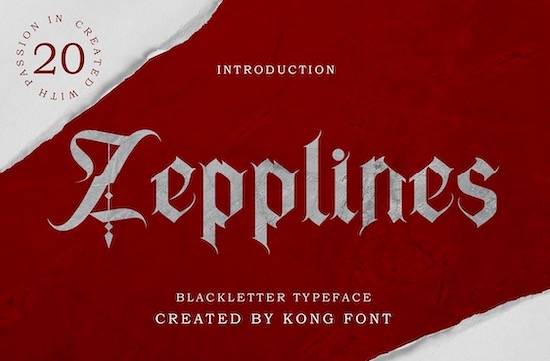
Zepplines font is a handmade modern Victorian font with a gothic blackletter display style. This gothic typeface works well with normal size text, but Zepplines font works even better for short words, large displays, or even just to incorporate a few of single characters in a detailed design.
Zepplines font is a blackletter typeface inspired in street art. It includes a full set of gorgeous lowercase, uppercase letters, and has punctuation, numerals, alternate characters, multilingual characters support.
Zepplines Gothic font